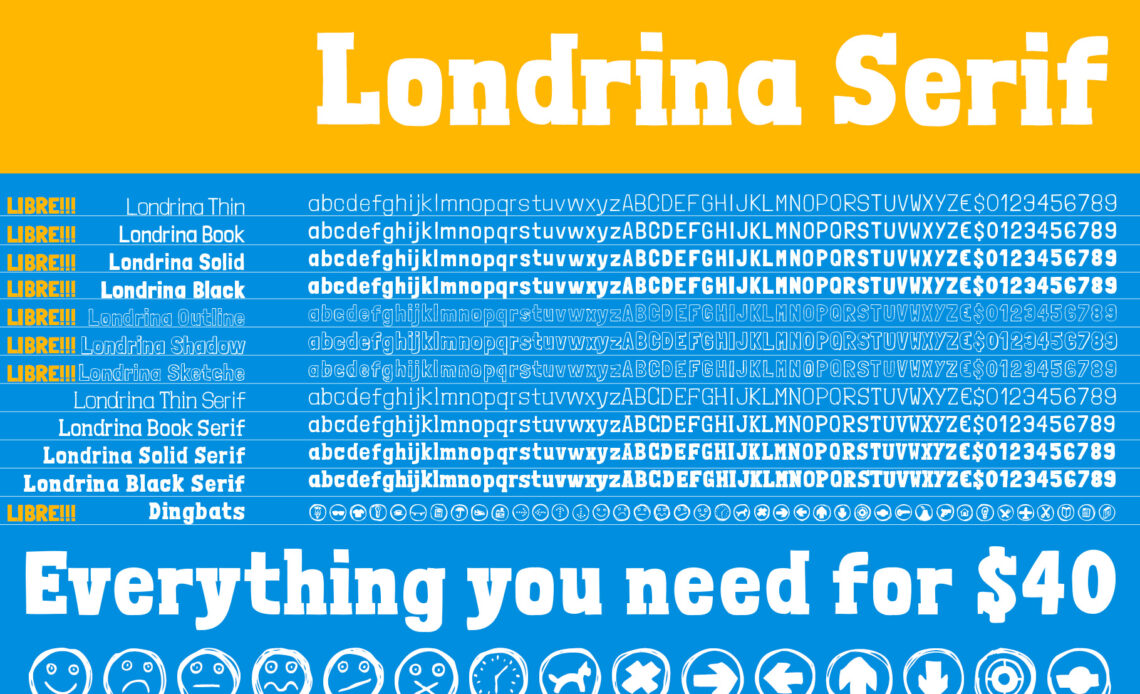
Discover Londrina Serif, the font that will transform your designs with its timeless elegance and captivating character. Inspired by the rich Brazilian city, this serif masterpiece oozes authenticity, inviting you on an unforgettable typographic journey. Each letterform dances with an alluring grace, exuding a harmonious blend of tradition and modernity.
Londrina Serif offers an enchanting symphony of weights, allowing you to orchestrate your words into captivating melodies. Whether you seek bold and assertive headlines or delicate whispers of text, this font adapts effortlessly, mirroring the fluidity of your imagination. Its clean lines and sleek curves evoke a sense of sophistication, rendering every project with an air of distinction.
Escape the mundane and embrace the captivating allure of Londrina Serif. Its versatility knows no bounds, enabling you to weave typographic magic across a myriad of designs. From captivating branding to alluring invitations, this font possesses the power to elevate your creations to extraordinary heights. Experience the enchanting embrace of Londrina Serif today, and let your words blossom into a symphony of elegance and inspiration.